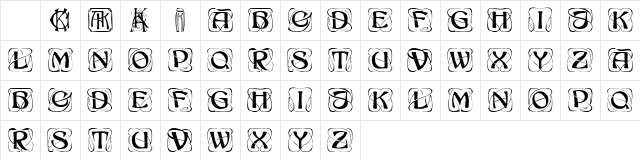
Konanur Kaps Regular Free Font
Konanur Kaps Regular
Complete Konanur Kaps Regular glyph index. Displaying only characters natively supported by Konanur Kaps Regular font.
Design Context for Konanur Kaps
Konanur Kaps is a composed and adaptable typeface that performs quietly and consistently across a wide range of design contexts.